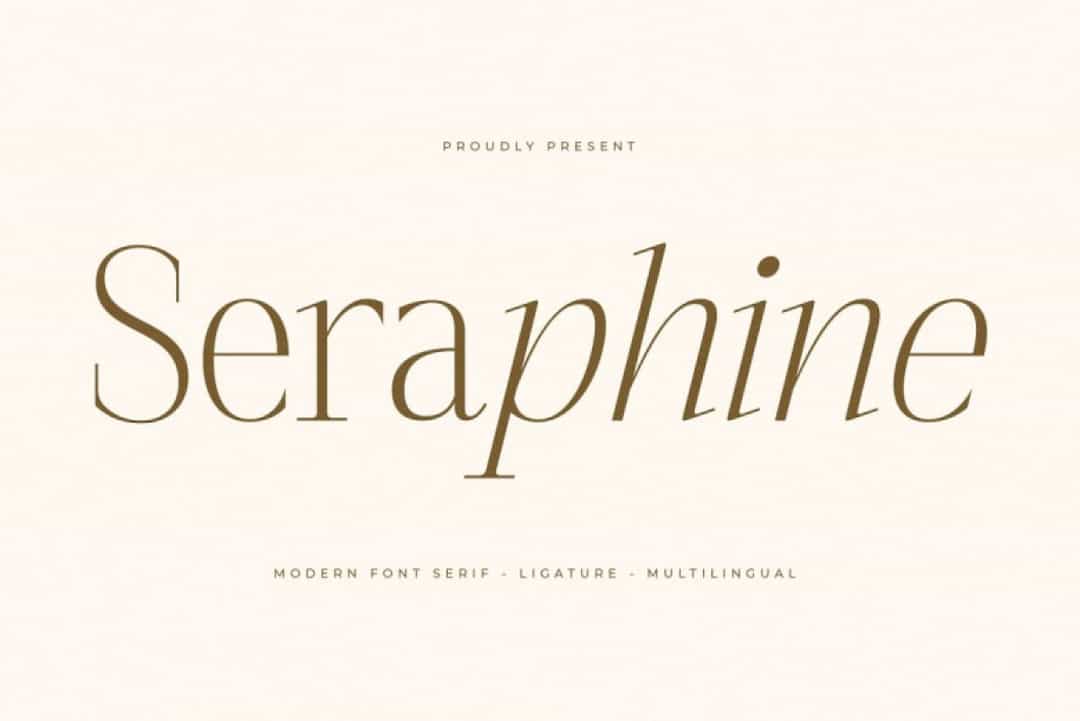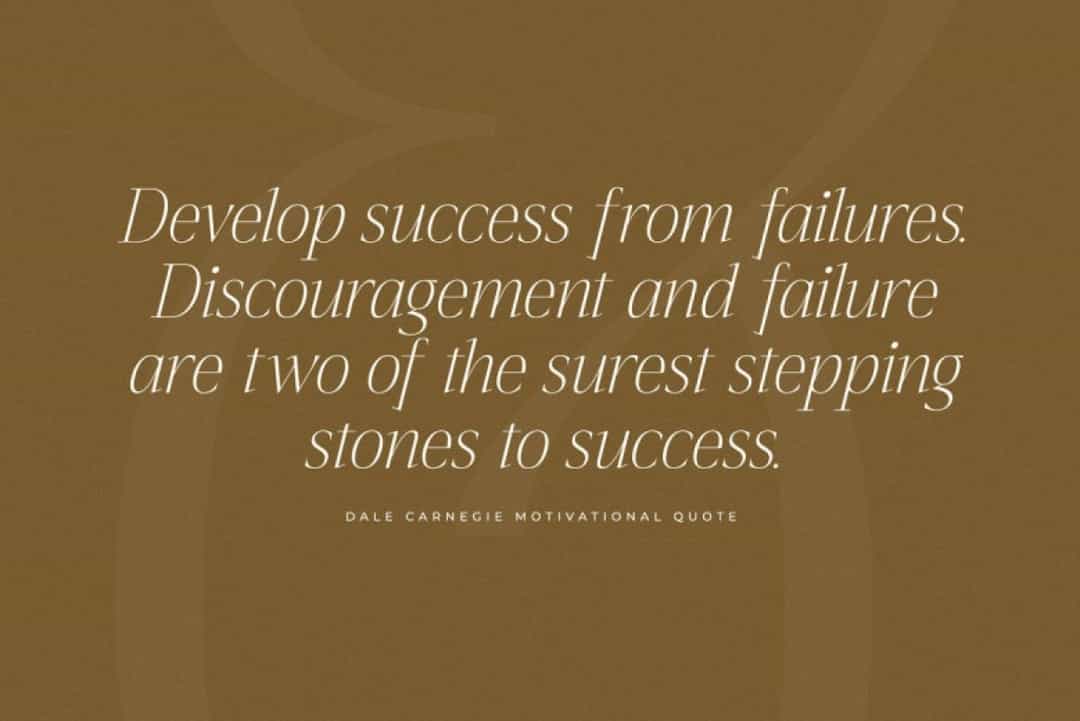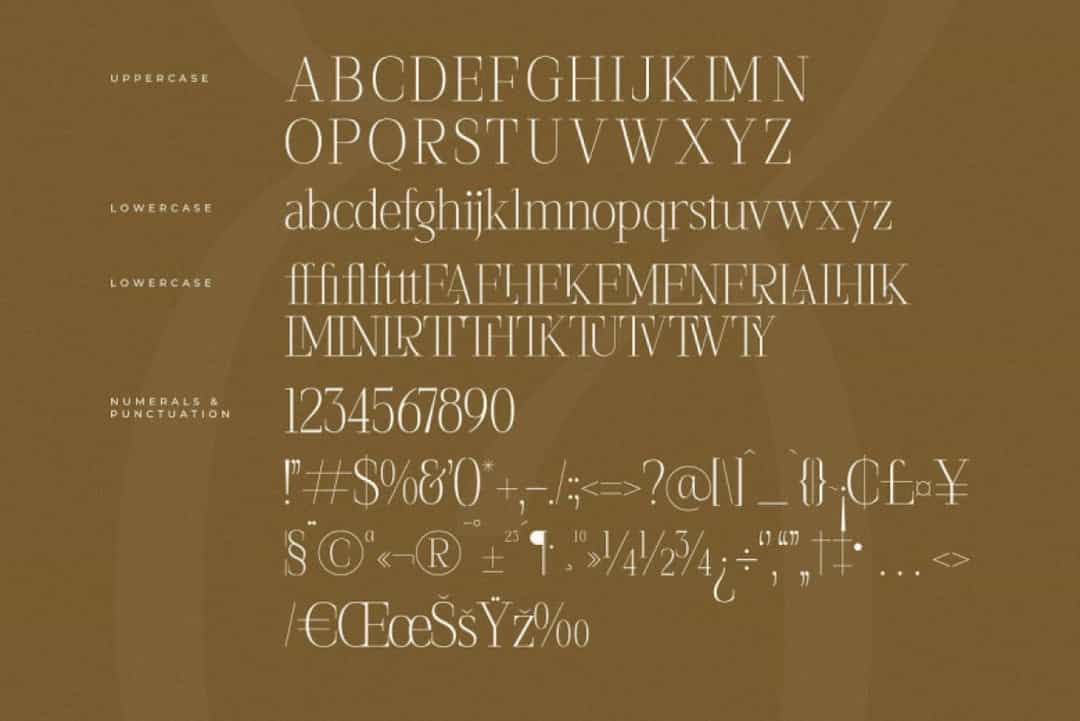
Seraphine is an elegant, contemporary, and Luxury serif font perfect for use in various projects requiring serif character – including logos, branding projects design for homeware products packaging of products mugs quotes bags shopping posters book covers names invite cards greeting cards watermark labels photography special occasions photography etc.